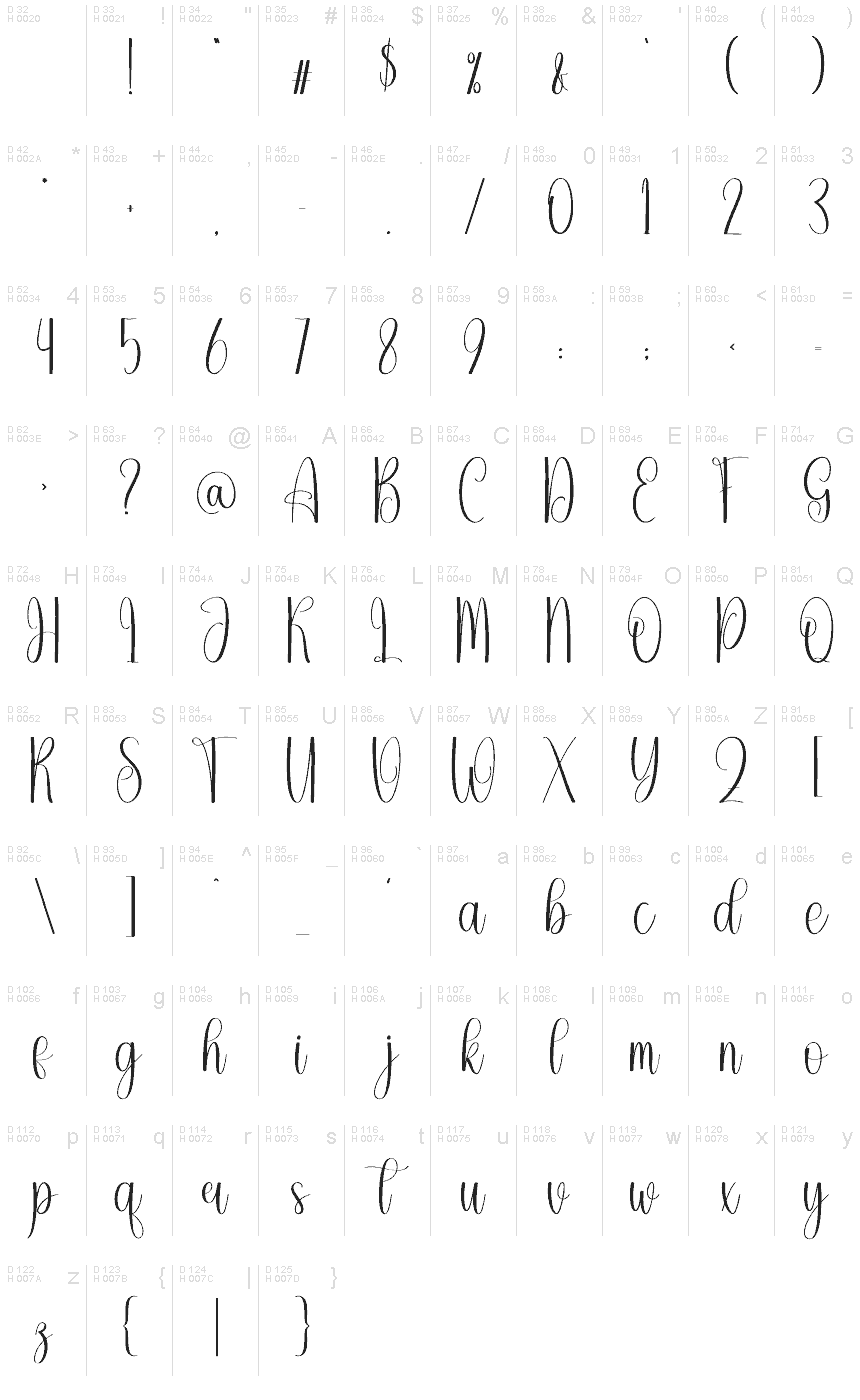
Yourself
Yourself font by Andi Moz is a light, condensed, and elegant handwritten font with a smooth flow. Its expressive, cursive style allows creating a truly modern feel that resembles instantaneously composed handwriting or signatures.
This free handwritten font is perfectly made for branding projects such as logos and packaging design. It can also be used for an authentic touch on social media covers, outdoor campaigns, posters, invitations, flyers, ads, brochures…